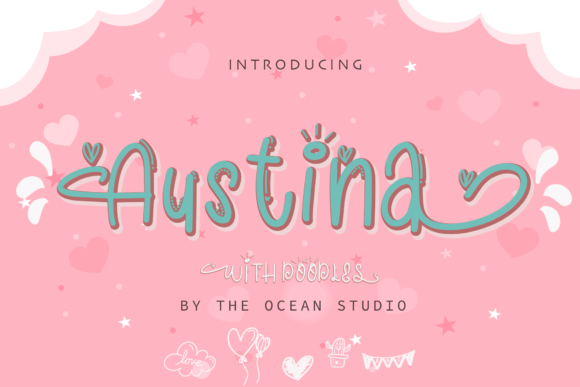
The Joy of Austina Font: A Designer’s New Best Friend
I still remember the day I stumbled upon Austina Font while working on a DIY project for a client’s Instagram campaign. I was on a tight deadline, and my design just wasn’t coming together. The font I was using was dull, and I needed something that would add a touch of personality to the project. That’s when I discovered Austina – a cute and joyful display font that instantly elevated my design. In this article, I’ll share my experience with Austina, its features, and how to make the most of this beautiful font.
An Honest Review of Austina Font
What I Love About Austina ✨
- Its playful and joyful vibe makes it perfect for creative projects, such as DIY crafts, Instagram posts, and social media graphics.
- The font is highly versatile, suitable for both digital and print applications.
- Austina’s unique character set includes a range of stylistic alternates, making it easy to add visual interest to your designs.
- The font is easy to read, even at smaller sizes, making it perfect for body text and captions.
- It’s a great choice for designers who want to add a touch of whimsy to their work without sacrificing legibility.
- Some users may find the font a bit too playful for formal or corporate designs. ⚠️
- Austina’s script style may not be suitable for very long blocks of text, as it can be a bit harder to read. ⚠️
The Story Behind Austina Font
Austina Font was designed with the intention of creating a joyful and playful display font. The designer aimed to craft a font that would bring a smile to the user’s face and inspire creativity. With its unique character set and stylistic alternates, Austina is perfect for designers who want to add a touch of personality to their work.
Q: What type of projects is Austina Font best suited for?
Austina Font is perfect for creative projects, such as DIY crafts, Instagram posts, social media graphics, and more.
Q: Is Austina Font easy to read?
Yes, Austina Font is designed to be easy to read, even at smaller sizes. However, it may not be suitable for very long blocks of text.